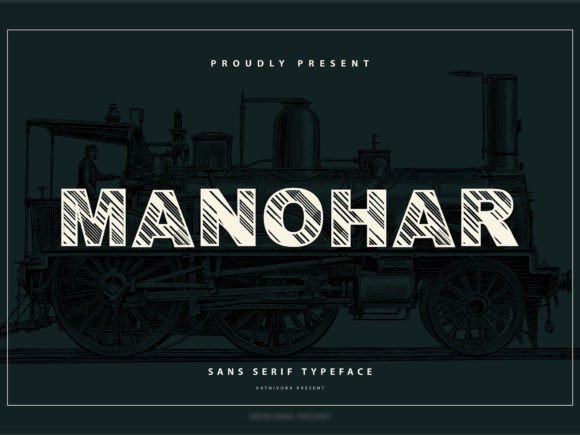
Step into a world of musical harmony, where typography meets melody. Introducing Manohar, the sans serif font tailored to capture the essence of music in every letter. A creation of artnivora.std, this font's simplicity and elegance will transform your designs into a visual symphony.
Visualize your logo designs adorned with Manohar's clean lines and open letterforms, creating a visual identity that resonates with the rhythm of your brand. Let your magazine pages come alive with Manohar's easy readability, allowing readers to immerse themselves in the music of your words. Unleash your creativity on social media platforms, where Manohar's distinctive character will make your posts dance off the screen.
Elevate your brochures and marketing materials with Manohar's timeless sophistication, leaving a lasting impression on your audience. From concert posters to album covers, Manohar's versatility will harmonize perfectly with the energy of your music-related projects.
More than just a font, Manohar is an instrument that transforms words into melodies. Its graceful curves and crisp edges will orchestrate a visual masterpiece, captivating the eyes and hearts of your audience.